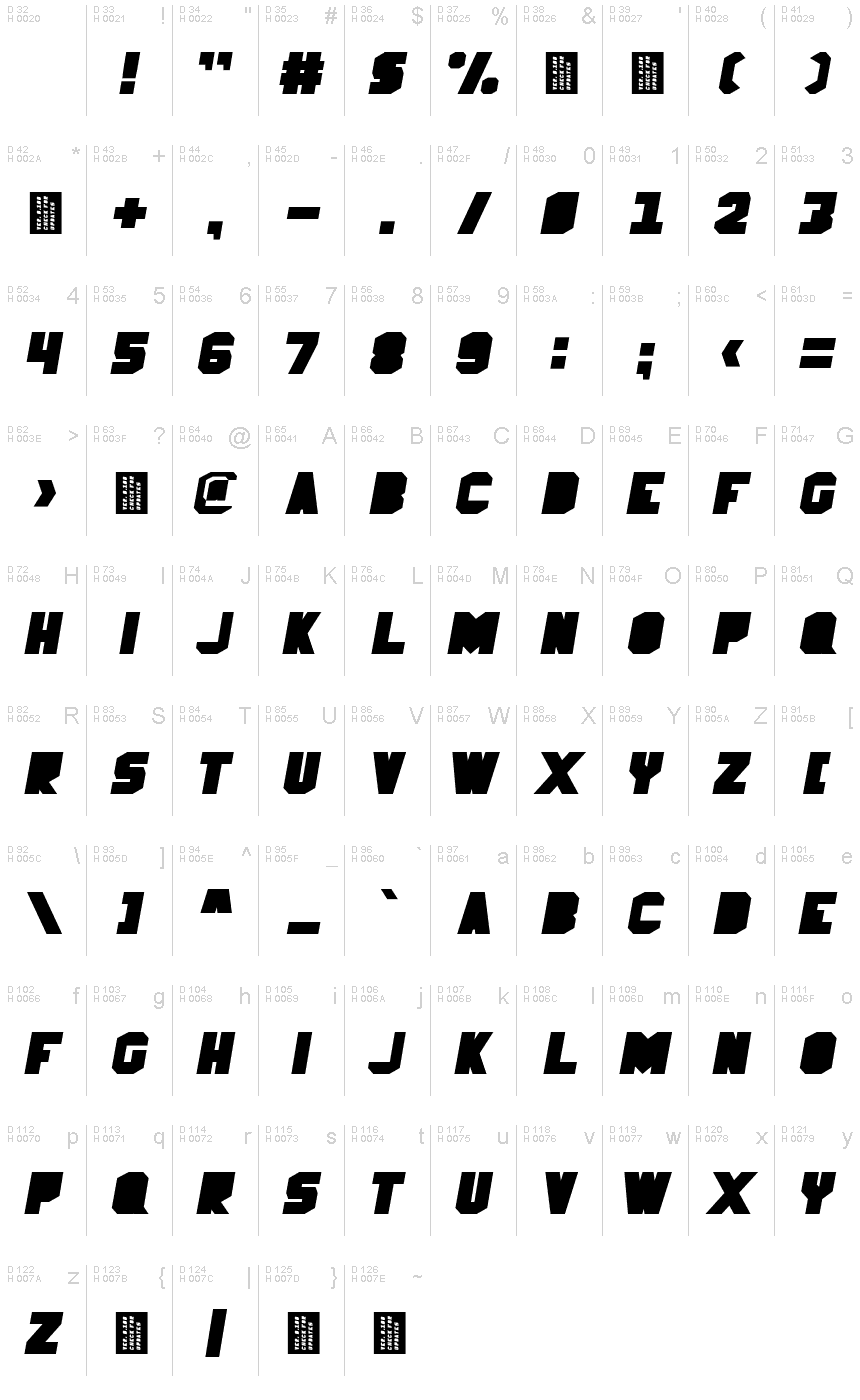
MadDocks-Regular
Mad Docks, the techno-inspired font designed by Edy Erazo Mu?oz, is a bold and attention-grabbing display typeface perfect for a range of projects. With its extra-bold weight and futuristic style, Mad Docks is ideal for creating impactful headlines or titles that demand attention. Its unique design also makes it suitable for logo design and branding projects that require a strong visual presence. From sci-fi movie posters to cutting-edge technology websites, Mad Docks will add an edge to any project that calls for a striking display font with an unmistakable attitude.